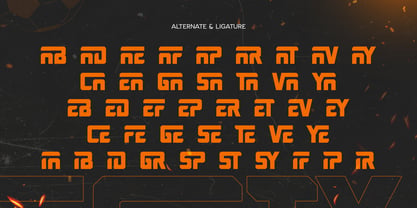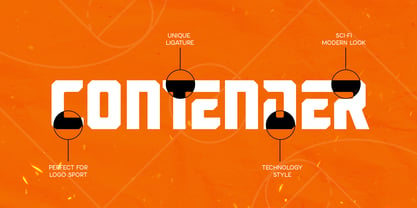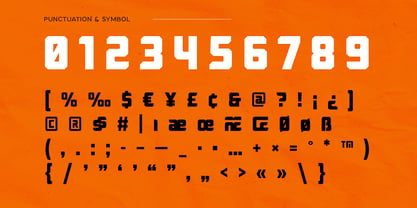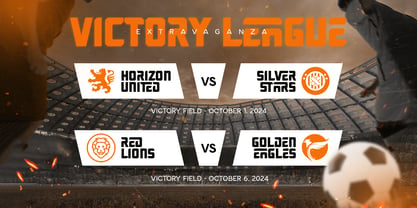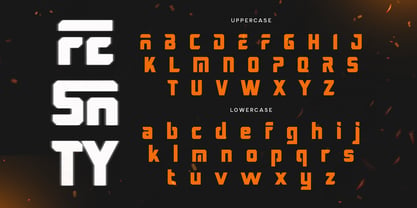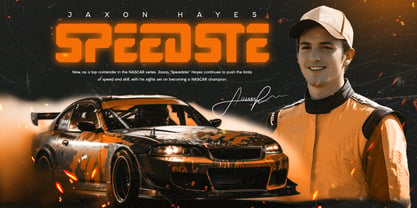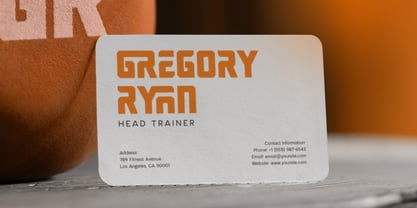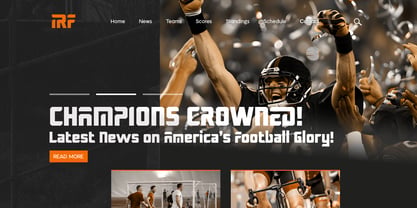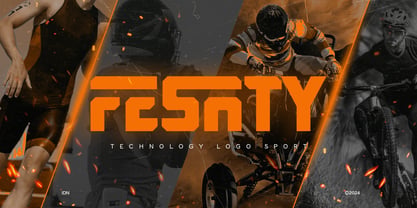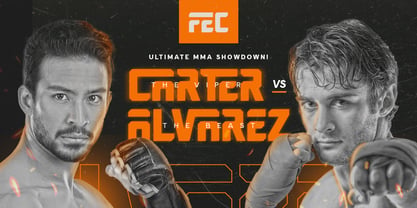
Fesaty
Die Schriftfamilie Fesaty wurde von Zamroni Hamzah entworfen und von Sensatype Studio veröffentlicht. Fesaty enthält 2 Stile und Familienpaketoptionen. Mehr über diese Familie
Fesaty - Sport Technology Logo Font
FESATY is a sport technology logo font that brings a bold, futuristic edge to your designs. With its sharp lines and dynamic structure, it’s perfect for branding in the sports, tech, and digital industries. Whether you’re designing logos, athletic wear, or tech products, FESATY offers a strong, modern aesthetic that grabs attention.
Inspired by the fast-paced world of sports and cutting-edge technology, FESATY combines sleek curves with angular forms to create a unique, high-energy look. Its bold presence makes it a great choice for brands looking to make a lasting impression with a logo that stands out. Elevate your branding with FESATY, a font designed for those who embrace the future of sport and tech with style and innovation.
FESATY Sport Technology Logo Font Features:
• Bold Sport & Technology Characters Ready
• Available with Unique Ligature Characters
• Punctuation, Number, and Symbol
• Uppercase and Lowercase
• Multilingual Support
• Opentype Features